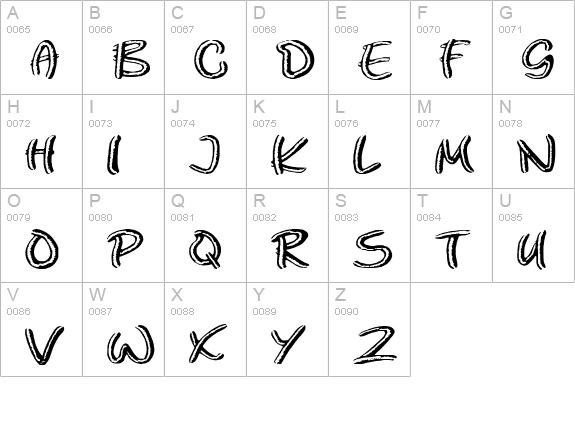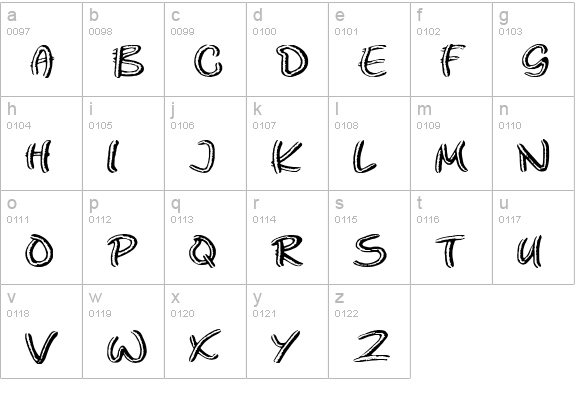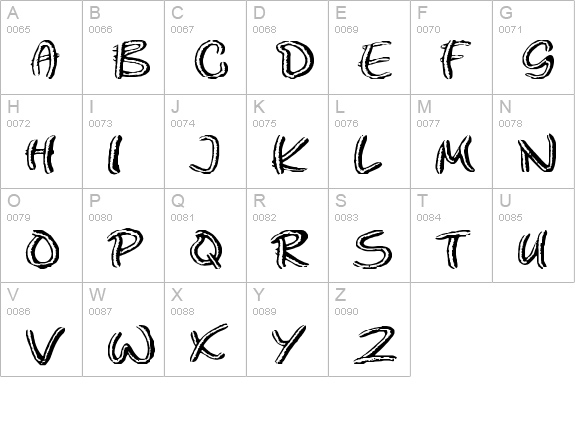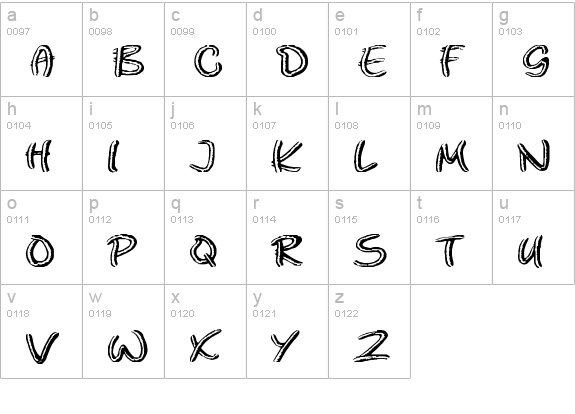
Introducing the charming and versatile Paco font, a delightful typeface that effortlessly blends modern sophistication with a playful twist. With its elegant letterforms and unique style, Paco is perfect for a wide range of design projects, from branding to packaging and everything in between. What sets Paco apart is not just its striking appearance, but also the fact that it is available for free download at FontsMarket.com. Yes, you read that right - you can elevate your designs with this stunning font without breaking the bank. So why wait? Download Paco today and add a touch of creativity and flair to your next project.